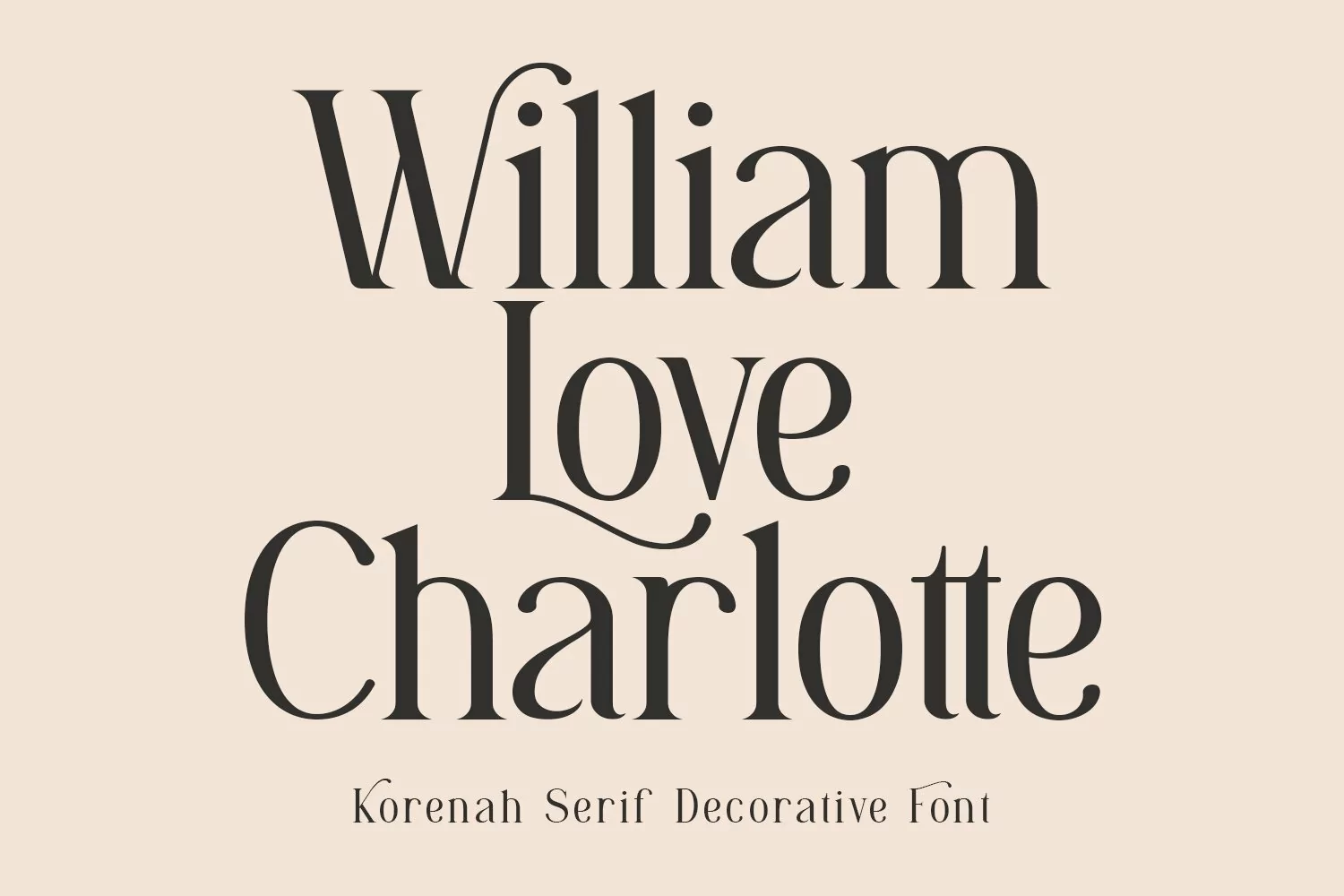
Korenah Serif Decorative Display Font
Korenah Serif Decorative Display Font is a handmade Modern Victorian handlettering, which is combining modern and classic typography with some awesome alternates. Yes we back to early 1800s, bring classic touch on this decade.